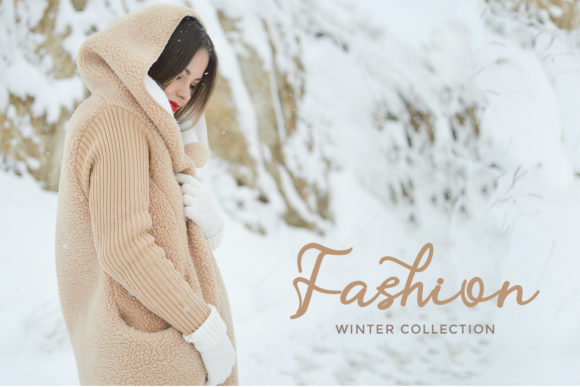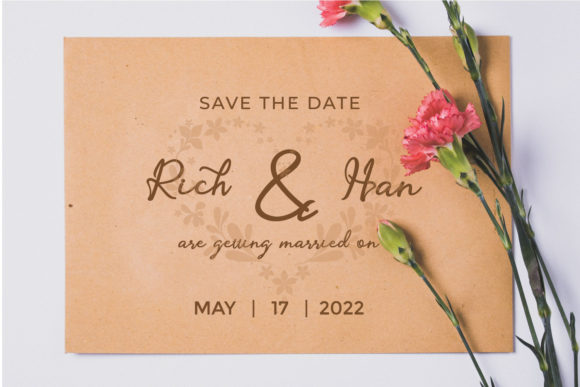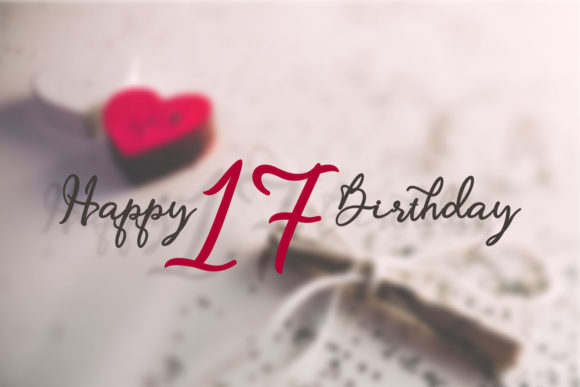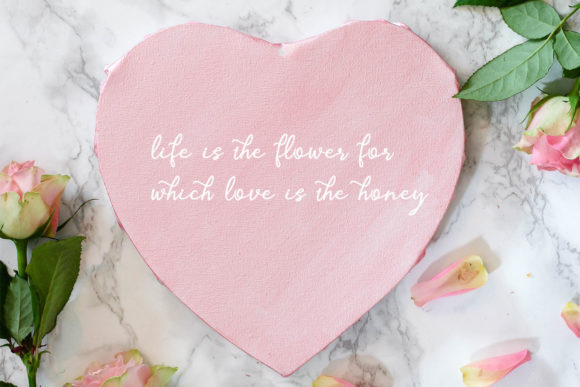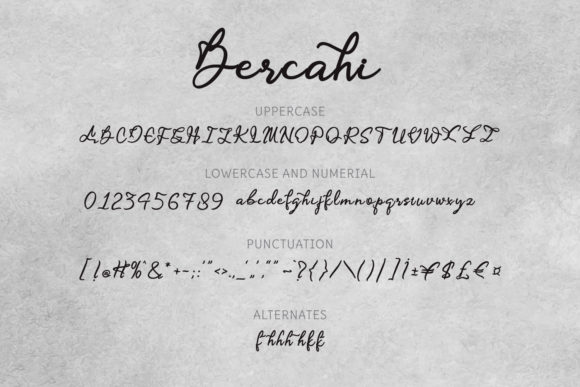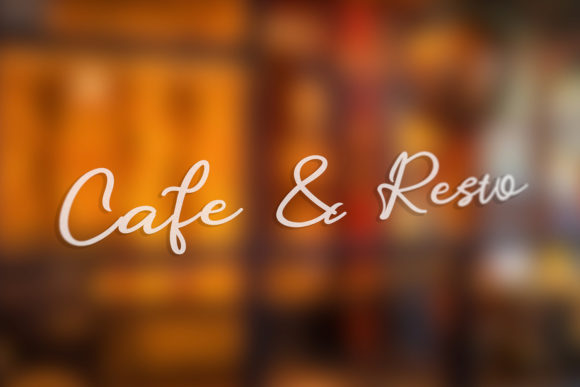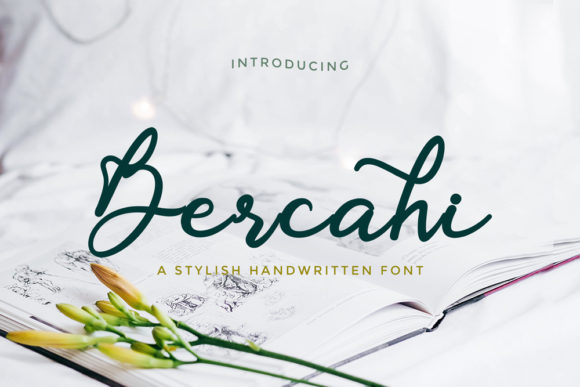
Bercahi Font: Elevate Your Designs with a Dazzling Script Font
In the world of typography, a font can make or break a design. For designers and crafters looking to add a touch of elegance and sophistication to their projects, the Bercahi font is an excellent choice. This stunning script font is meticulously crafted to provide a beautiful and refreshing look that is sure to captivate audiences.
What is Bercahi Font?
Bercahi is a dazzling script font that boasts intricate details and a high level of craftsmanship. Its unique and elegant design makes it perfect for a wide range of applications, from branding and advertising to packaging and digital media. Whether you’re looking to create a luxurious feel or simply want to add some flair to your designs, Bercahi is an excellent option.
Key Features of Bercahi Font
- Highly Detailed Design: Bercahi font is characterized by its intricate details and ornate design elements. Each letter is carefully crafted to ensure a high level of readability and aesthetic appeal.
- Neatly Crafted: The font is meticulously designed to provide a clean and elegant look that is perfect for a wide range of applications.
- Beautiful and Refreshing: Bercahi font is designed to provide a beautiful and refreshing look that is sure to captivate audiences.
- Script Font: Bercahi is a script font that is perfect for adding a touch of elegance and sophistication to your designs.
Who is Bercahi Font for?
Bercahi font is particularly crafted for designers and crafters who need a beautiful and refreshing look to their designs. This includes:
- Graphic Designers: Graphic designers can use Bercahi font to create stunning branding and advertising materials, such as logos, brochures, and posters.
- Digital Designers: Digital designers can use Bercahi font to create beautiful and engaging digital media, such as website headers, social media graphics, and email newsletters.
- Crafters: Crafters can use Bercahi font to add a touch of elegance and sophistication to their craft projects, such as handmade cards, scrapbooking, and DIY home decor.
How to Use Bercahi Font
Using Bercahi font is easy and straightforward. Here are some tips to get you started:
- Pair with Other Fonts: Bercahi font can be paired with other fonts to create a unique and visually appealing design.
- Use for Headings and Titles: Bercahi font is perfect for headings and titles, where its elegant design can be showcased.
- Experiment with Colors: Bercahi font can be used with a range of colors to create a unique and eye-catching design.
Benefits of Using Bercahi Font
Using Bercahi font offers a range of benefits, including:
- Unique and Eye-Catching Design: Bercahi font provides a unique and eye-catching design that is sure to captivate audiences.
- Elegant and Sophisticated: Bercahi font adds a touch of elegance and sophistication to any design.
- Highly Versatile: Bercahi font can be used for a wide range of applications, from branding and advertising to packaging and digital media.
In conclusion, Bercahi font is a stunning script font that is perfect for designers and crafters looking to add a touch of elegance and sophistication to their designs. Its intricate details, neat craftsmanship, and beautiful design make it an excellent choice for a wide range of applications. Whether you’re looking to create a luxurious feel or simply want to add some flair to your designs, Bercahi font is an excellent option.